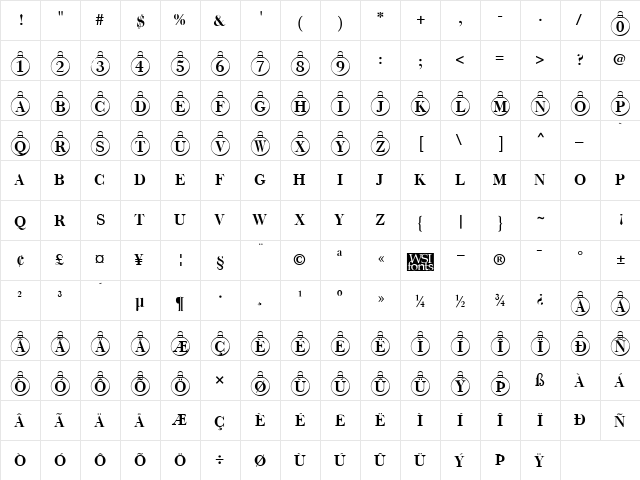
ChristmasTree Regular
Design Context for ChristmasTree Typeface
ChristmasTree is a composed and adaptable typeface that performs quietly and consistently across a wide range of design contexts.
Pro Tip: Use ChristmasTree in both headline and body roles to test its range before committing to a single application.